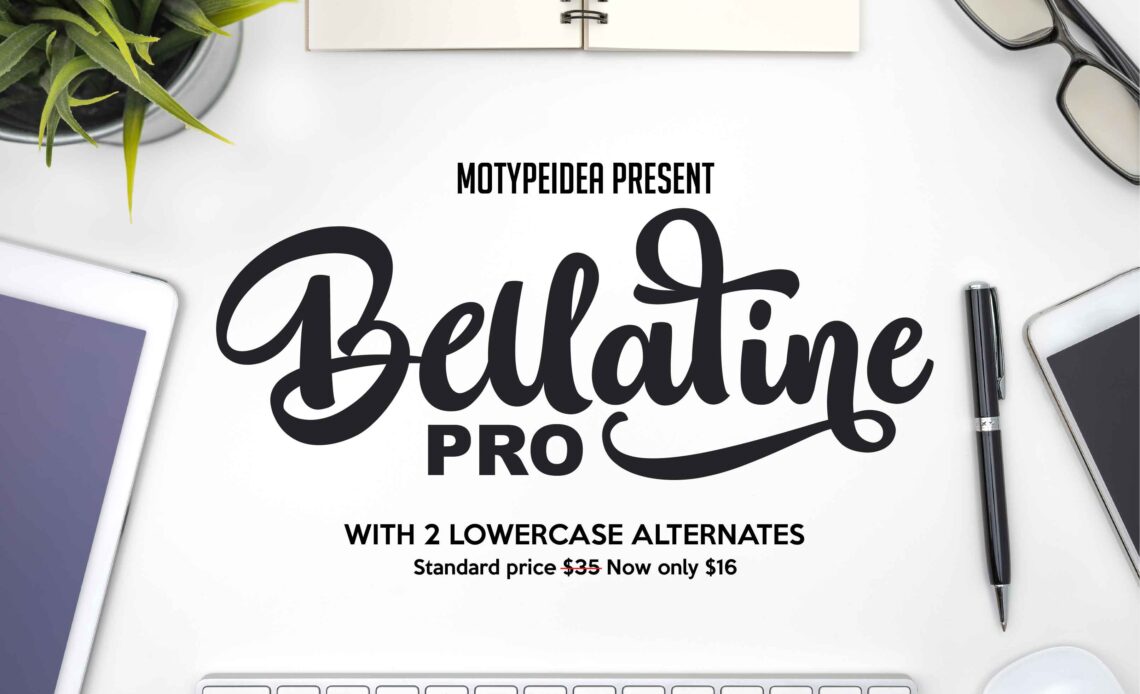
Dive into the world of modern calligraphy with Bellatine, a striking script font that exudes individuality and grace. Its bold and confident strokes evoke a sense of strength and determination, adding an eye-catching touch to your creative projects.
With Bellatine, you'll find a versatile font that effortlessly adapts to a wide range of designs, from elegant invitations to whimsical posters and social media graphics. Its flowing, handwritten style adds a personal touch to your words, making them resonate with your audience on a deeper level.
Unleash your inner artist and explore the endless possibilities of Bellatine. Let its smooth, connected letters guide your designs, creating a cohesive and visually appealing aesthetic. Indulge in the beauty of its carefully crafted glyphs, each one designed to enhance the overall harmony of your creations.
Bellatine is more than just a font; it's an expression of your unique style. Whether you're a seasoned designer or just starting, this font will empower you to create captivating designs that leave a lasting impression.